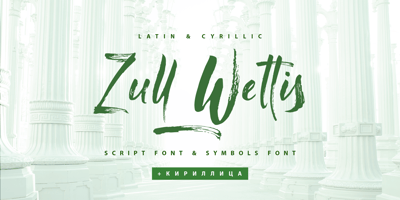
Zull Wettis Cyrillic Font Family was designed by Iryna Dviliuk and published by Ira Dvilyuk. Zull Wettis Cyrillic contains 2 styles and family package options. The script font Zull Wettis was handwritten with a dry brush and will look great on branding design, posters, apparel, logotype, website header, fashion design, wedding card design, and more.Zull Wettis script font contains a full set of uppercase and lowercase letters and 23 ligatures – which can be used to create a handwritten calligraphy look. The Cyrillic part of the font contains the uppercase letters and lowercase letters and 18 ligatures, giving a realistic hand-lettered style. Zull Wettis Symbols is a font with over 36 unique, hand-drawn elements and swashes that can help to make your design more original. A different symbol is assigned to every uppercase or lowercase standard character plus numbers 0-9 so you do not need graphics software just simply type the letter you need.Multilingual Support for 32 languages: Latin glyphs for Afrikaans, Albanian, Basque, Bosnian, Catalan, Danish, Dutch, English, Estonian, Faroese, Filipino, Finnish, French, Galician, Indonesian, Irish, Italian, Malay, Norwegian Bokmål, Portuguese, Slovenian, Spanish, Swahili, Swedish, Turkish, Welsh, Zulu.Works perfectly on the Canva platform. For Cricut & Silhouette recommended.And Cyrillic glyphs support Russian, Belorussian, Bulgarian, Ukrainian, and Kazakh languages.